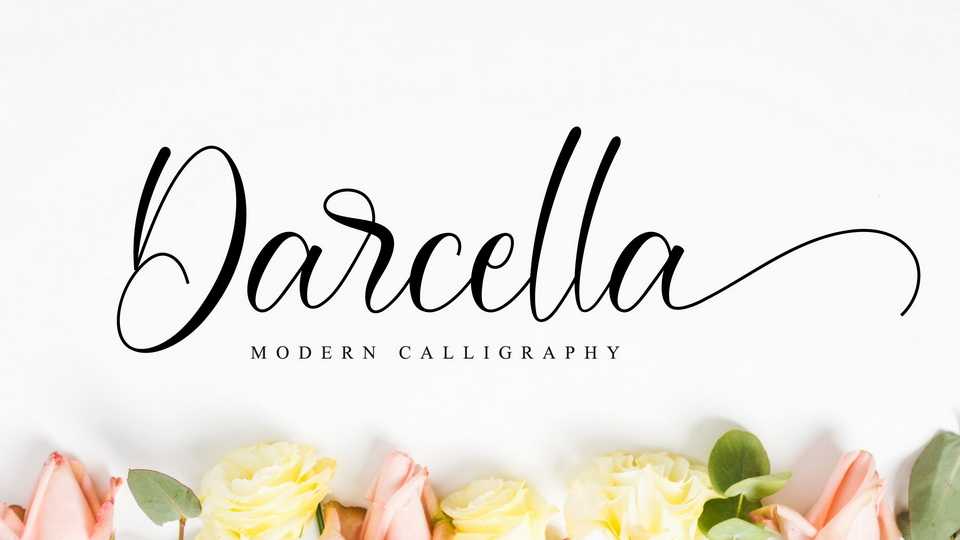
Download Darcella font, a beautiful script typeface. Darcella has a classy, elegant, and modern look which can be used for logos, branding, invitations, wedding designs, social media posts, and every other design in need of a handwritten touch.
Designer: Nissa Studio